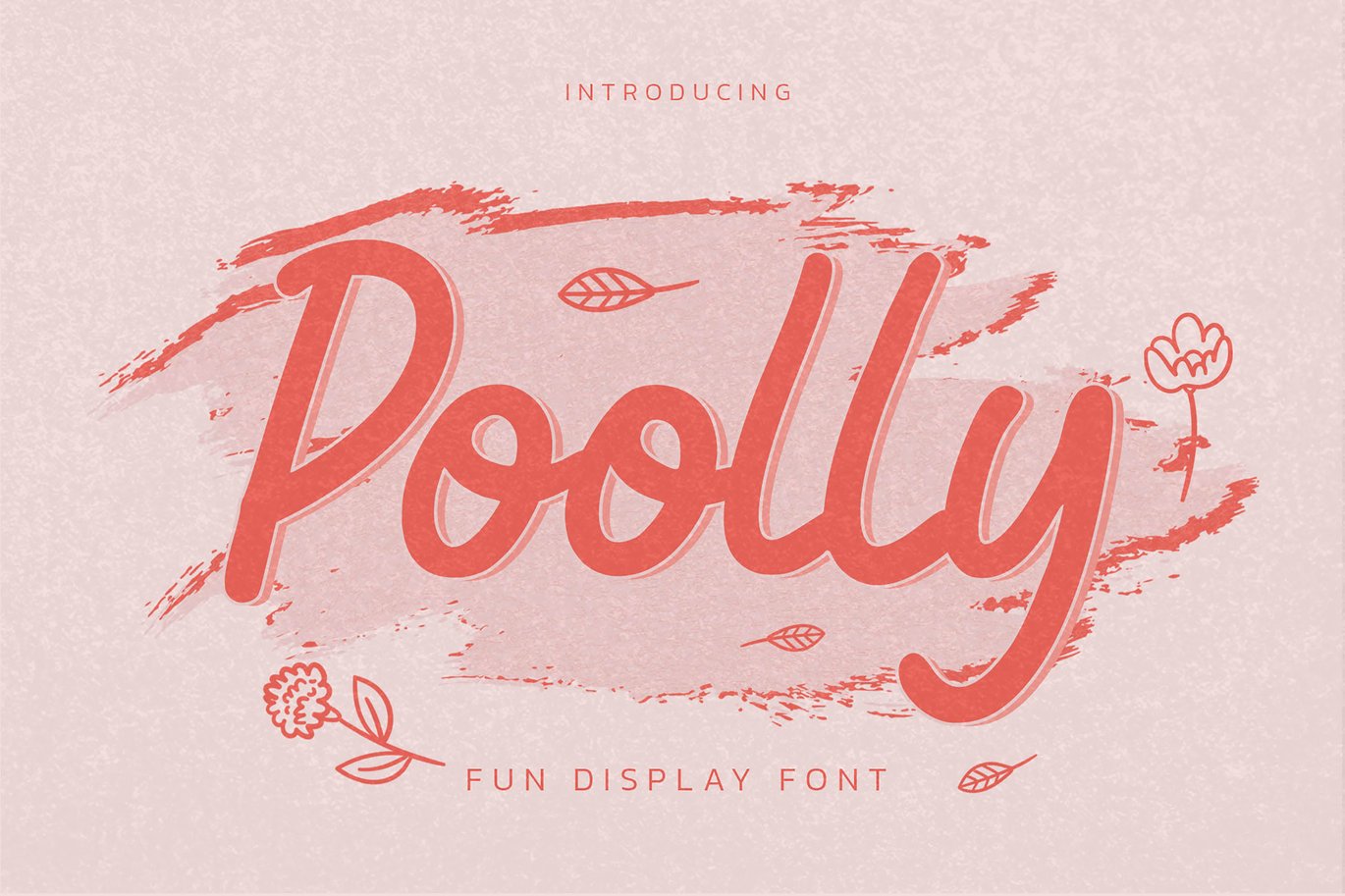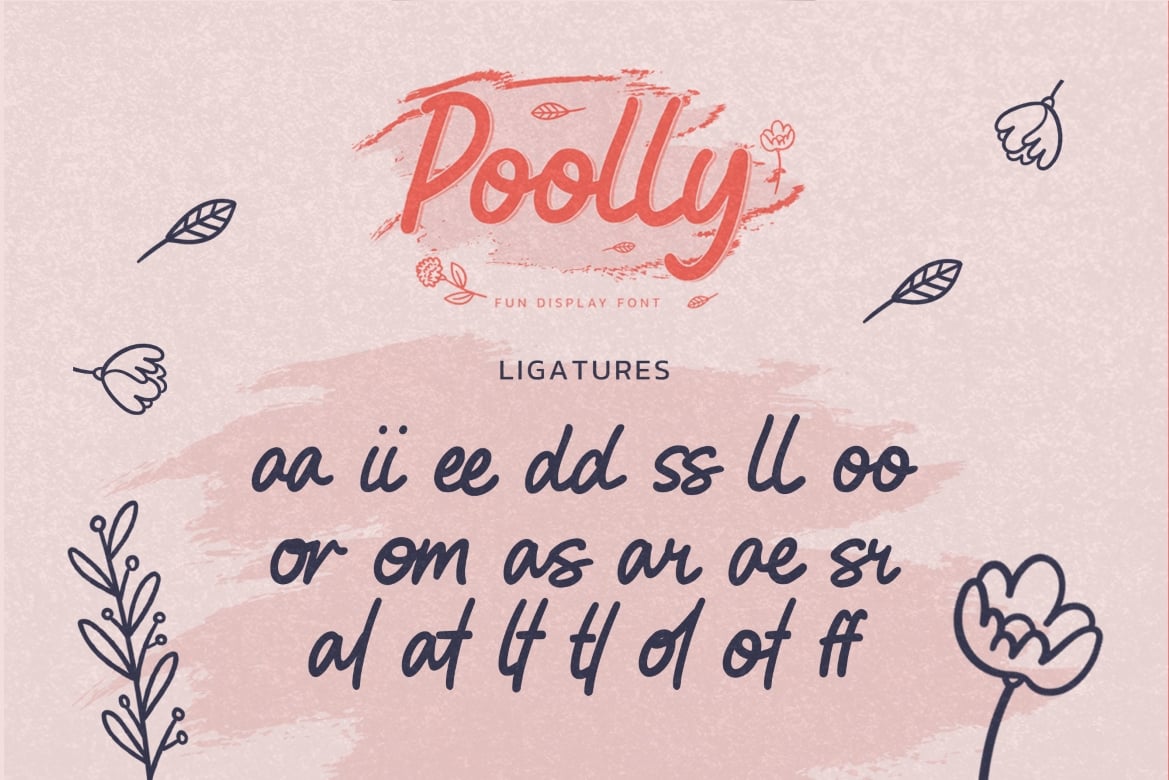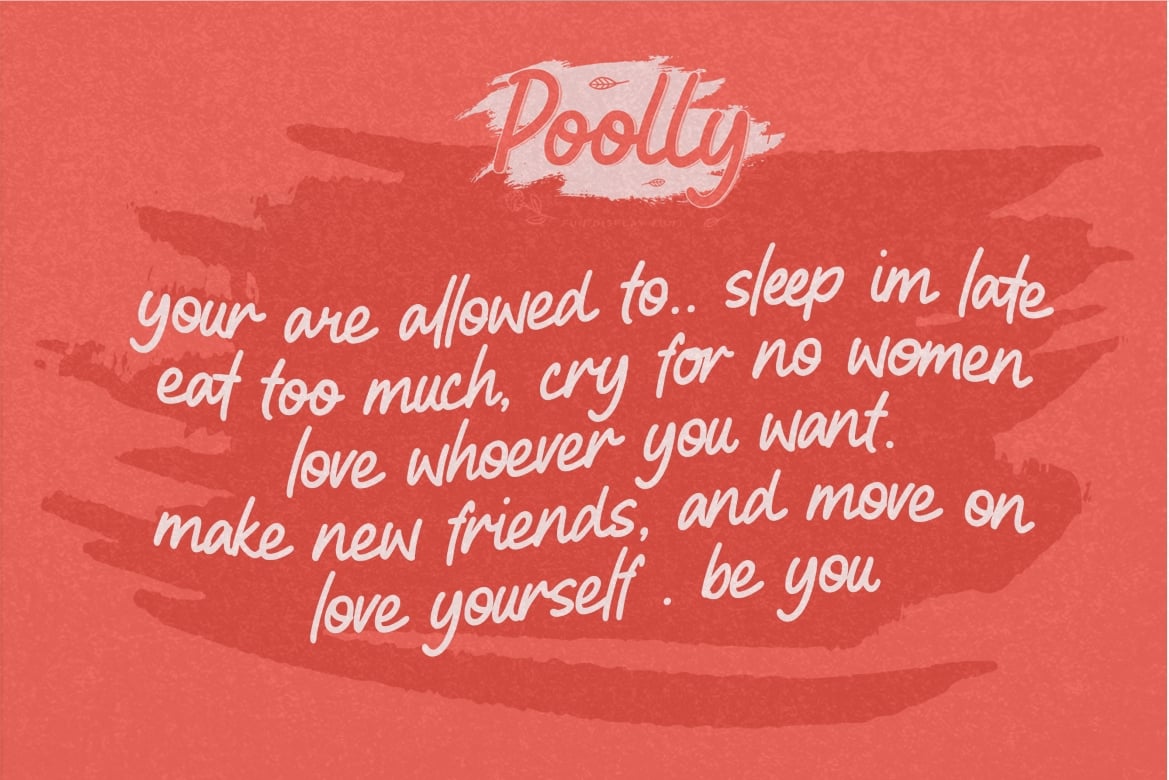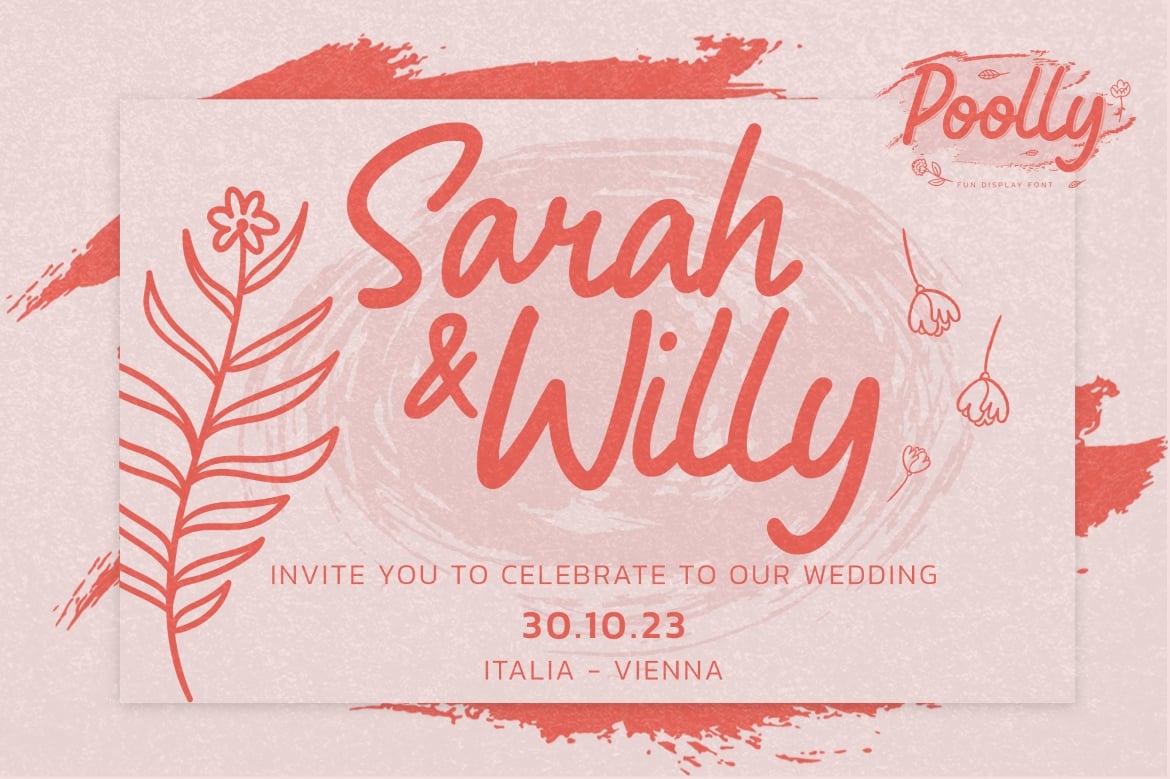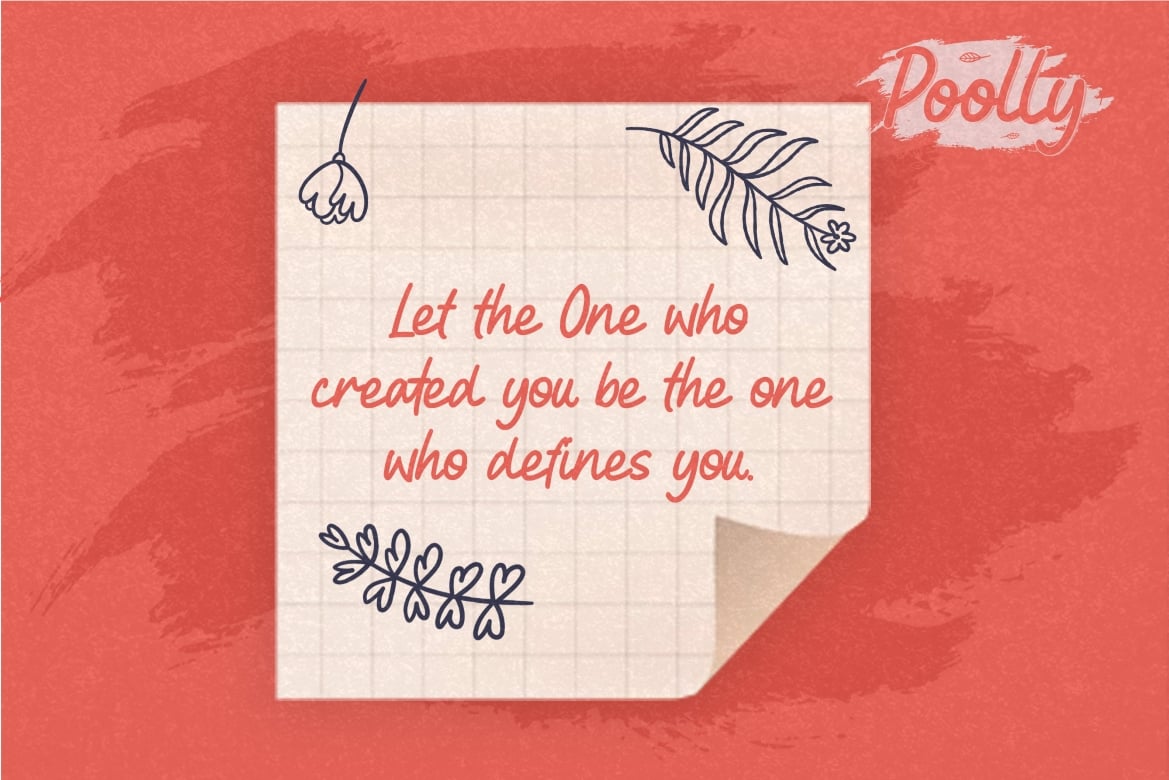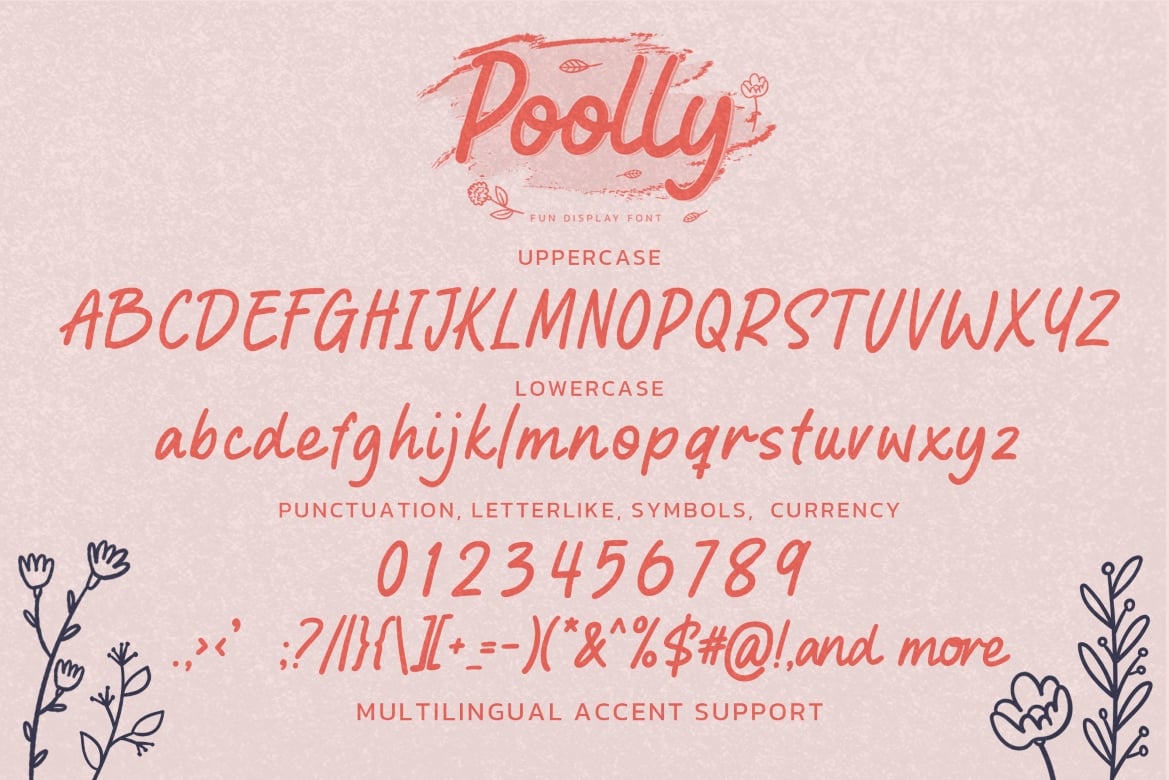
Poolly – Fun Display Font
Poolly – Fun Display Font. This handmade font will make your design has a beautiful natural touch for each details. It is perfect for any design project as Invitation,logo, book cover, craft or any design purposes.